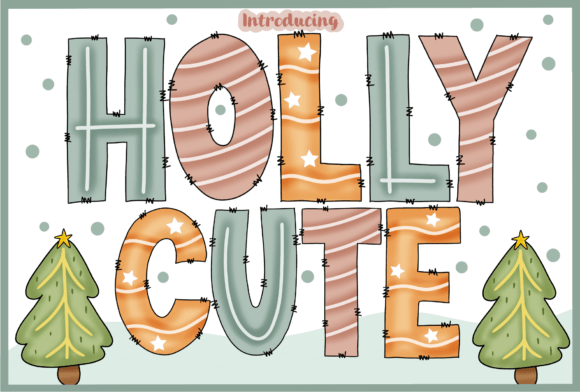
The Perfect Font for a Jolly Holiday Season
As I sat at my desk, surrounded by twinkling lights and the scent of pine, I couldn’t help but feel the magic of the holiday season. I was brainstorming ideas for a friend’s Christmas card when it hit me – I needed a font that captured the whimsy and cheer of the holidays. And then, like a snowflake falling gently from the sky, I stumbled upon the Holly Cute Font.
This delightful decorative font is designed to bring a smile to your face with its fun and festive letters, each adorned with Christmas patterns and ornaments. Whether you’re creating holiday cards, invitations, or cheerful designs, the Holly Cute Font is the perfect addition to your toolkit. As a designer, you’ll appreciate its versatility and the ease with which it can elevate your projects.
Holly Cute Font Key Features
- Unique Characteristics: Holly Cute Font features a playful, hand-drawn design with rounded edges and intricate details, making it perfect for children’s books, magazines, and other materials targeting young audiences
- Style Options: The font comes in regular and bold weights, as well as a decorative version with additional flourishes and ornaments
Holly Cute Font Review
I recently had the chance to work with the Holly Cute Font, and I must say, it’s a sweet addition to any design project. ✨ Here are some things that I think work well with this font:
- Its playful and feminine vibe makes it perfect for designs targeting a young female audience.
- The font’s rounded edges and soft lines add a touch of whimsy and cuteness, making it ideal for children’s books, greeting cards, and other related projects.
- The font is highly customizable, allowing designers to adjust the size, color, and spacing to suit their needs.
However, I do think there are some limitations to consider: ⚠️
- The font may be too sweet for some designs, making it hard to convey a more serious or professional tone.
- The font’s readability can suffer at smaller sizes, which may be a concern for designers working with limited space.
Overall, I think the Holly Cute Font is a great addition to any designer’s toolkit. It’s perfect for projects that require a touch of whimsy and cuteness, but may not be the best choice for more serious or professional designs. With some careful consideration and customization, this font can add a lot of value to your designs.